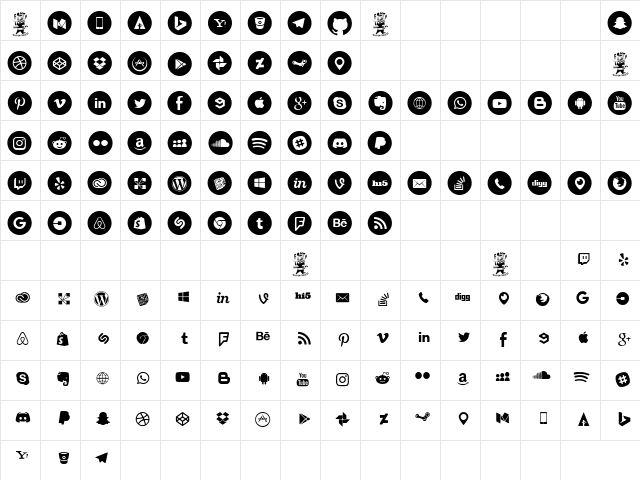
Complete Social Media Circled Regular glyph index. Displaying only characters natively supported by Social Media Circled Regular font.
Social Media Circled is a composed and adaptable typeface that performs quietly and consistently across a wide range of design contexts.